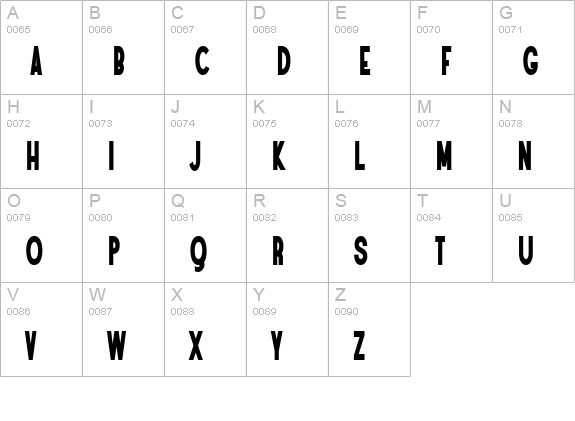
TR Angostura Black is a maximum-weight, dramatic variant in the TR typeface family \xE2\x80\x94 well suited to maximum-impact headlines, posters, and packaging.
TR Angostura Black is a stylish and modern typeface that exudes sophistication and elegance. Its bold and impactful design makes it ideal for headlines, titles, and other display purposes. The sleek lines and sharp angles of this font give it a contemporary edge that is sure to make any project stand out. What makes TR Angostura Black even more appealing is that it is available for free download at FontsMarket.com. This means you can easily access and use this stunning font in your designs without any cost. Whether you're working on branding, advertising, or any other creative project, TR Angostura Black is a versatile choice that will add a touch of class and professionalism. Download it now and elevate your designs with this exceptional typeface.